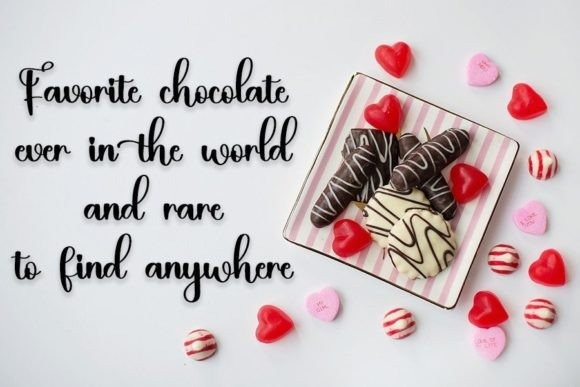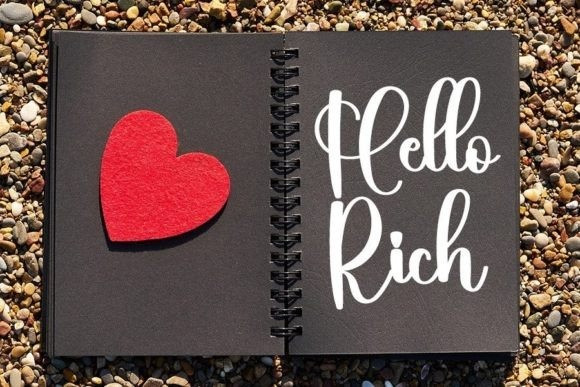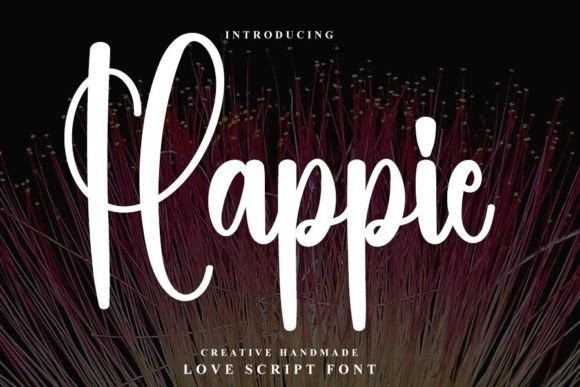
Happie Font
Happie Font is a stylish handwritten font with a contemporary atmosphere and impeccable form, inspired by timeless classic calligraphy. Balanced and varied, this font was designed to enhance the beauty of your projects.